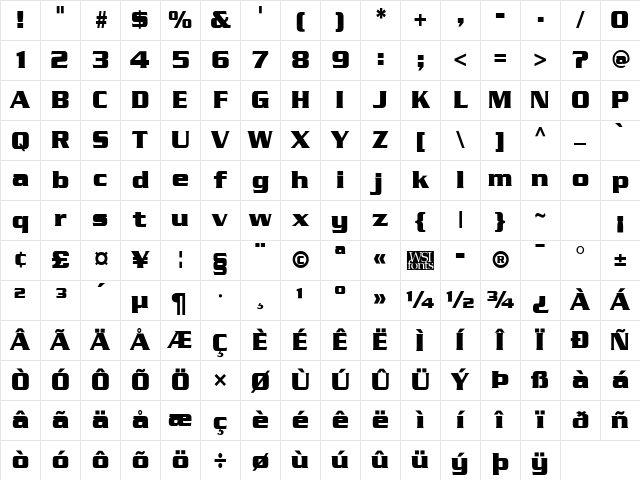
Julius Black Regular
Design Context for Julius Black
Julius Black is a composed and adaptable typeface that performs quietly and consistently across a wide range of design contexts.